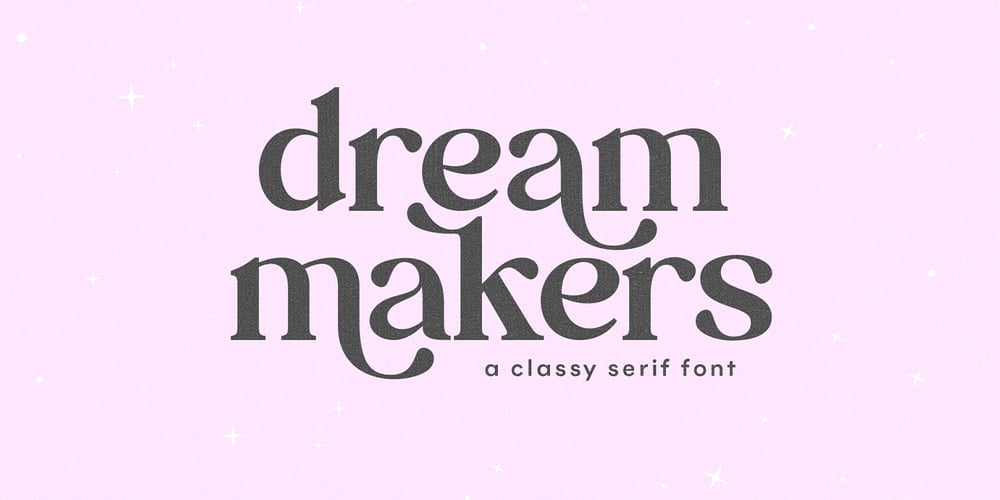
Dream Makers Font Family was designed by Kaitlynn Albani and published by KA Designs. Dream Makers contains 1 styles and family package options. Dream Makers is a whimsical serif with a lot of character. Take full advantage of this typeface by showcasing the exaggerated swashes – making each project luxurious and unique!Dream Makers is unique as it can be used for a variety of design styles. It fits in wonderfully for free-spirited everyday designs and also for more classy editorial looks!This font is perfect for logos, branding, packaging, advertisements, social media and more!